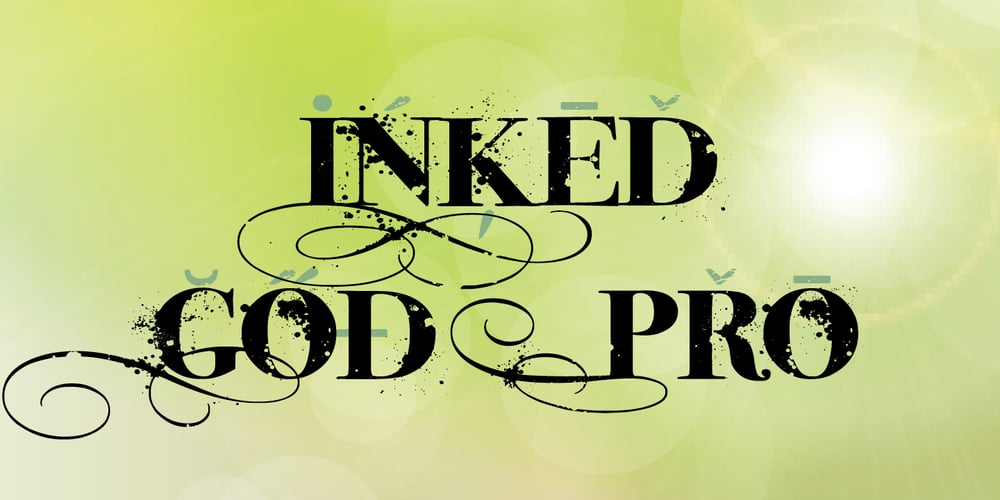
Inked God Pro Font Family was designed by Roger S. Nelsson, Guillaume Séguin and published by CheapProFonts. Inked God Pro contains 1 styles and family package options. This font has that grungy, gritty look, and combines it with some elegant swirls. Weird and wonderful. I have added swirls and decorations to ALL the uppercase letters that did not have them, so there are now wider possibilities to add interesting decorations to your composition. In addition to the expanded language support, of course. ALL fonts from CheapProFonts have very extensive language support: They contain some unusual diacritic letters (some of which are contained in the Latin Extended-B Unicode block) supporting: Cornish, Filipino (Tagalog), Guarani, Luxembourgian, Malagasy, Romanian, Ulithian and Welsh. They also contain all glyphs in the Latin Extended-A Unicode block (which among others cover the Central European and Baltic areas) supporting: Afrikaans, Belarusian (Lacinka), Bosnian, Catalan, Chichewa, Croatian, Czech, Dutch, Esperanto, Greenlandic, Hungarian, Kashubian, Kurdish (Kurmanji), Latvian, Lithuanian, Maltese, Maori, Polish, Saami (Inari), Saami (North), Serbian (latin), Slovak(ian), Slovene, Sorbian (Lower), Sorbian (Upper), Turkish and Turkmen. And they of course contain all the usual “western” glyphs supporting: Albanian, Basque, Breton, Chamorro, Danish, Estonian, Faroese, Finnish, French, Frisian, Galican, German, Icelandic, Indonesian, Irish (Gaelic), Italian, Northern Sotho, Norwegian, Occitan, Portuguese, Rhaeto-Romance, Sami (Lule), Sami (South), Scots (Gaelic), Spanish, Swedish, Tswana, Walloon and Yapese.